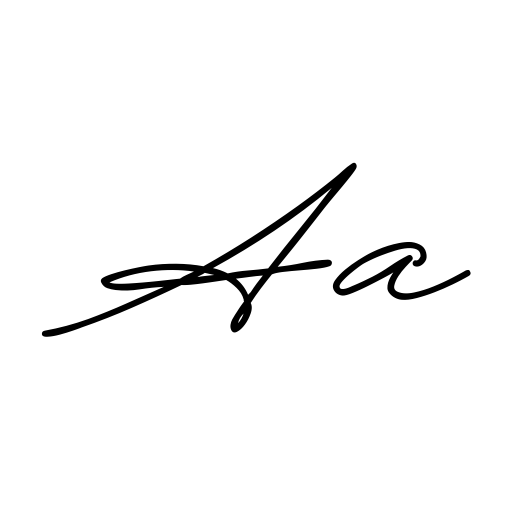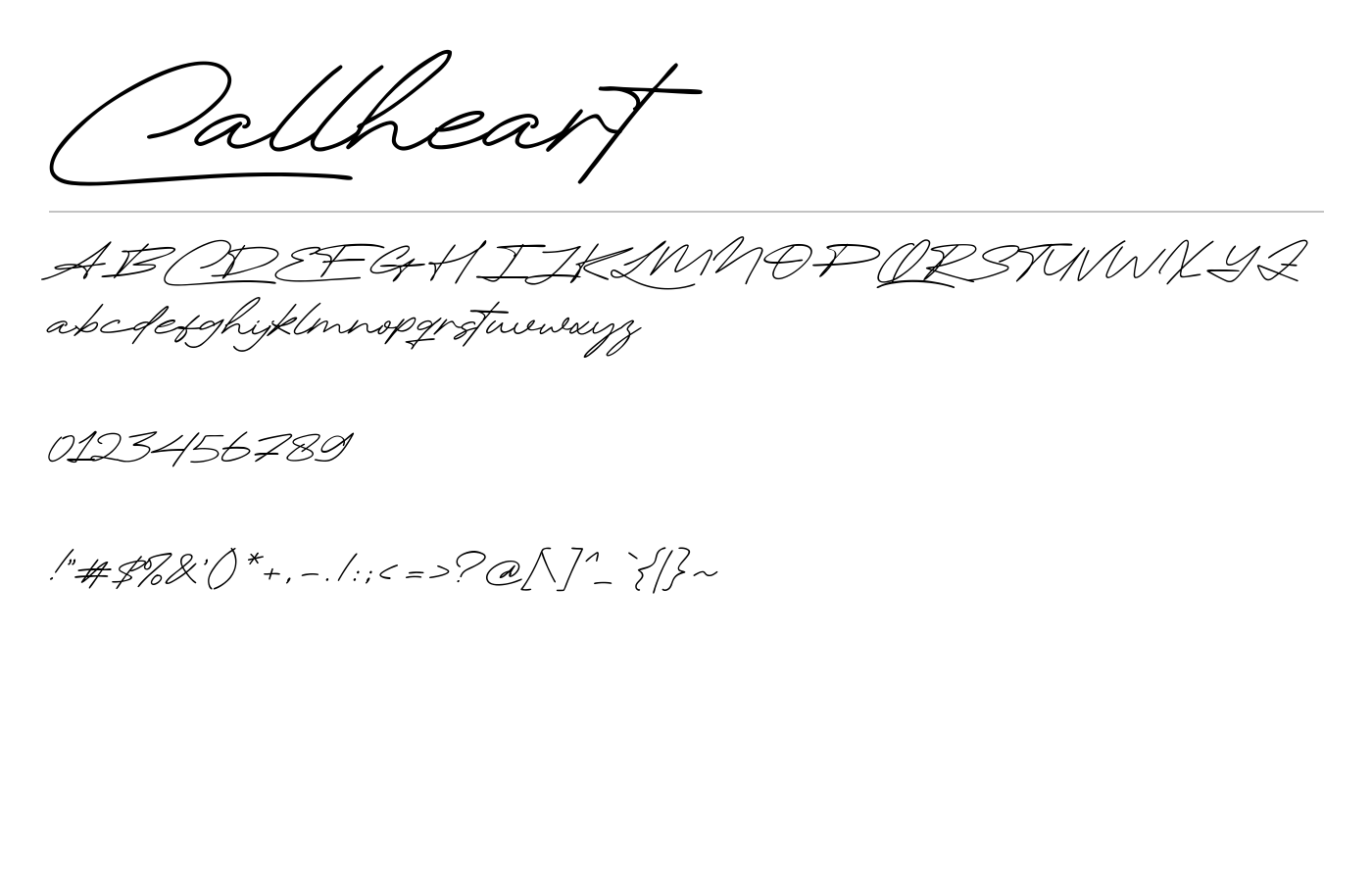
Callheart is a delicate, elegant script font with a handwritten, cursive style that exudes a personal and artistic touch. Its thin, flowing strokes and airy spacing create a sophisticated yet approachable feel, making it ideal for invitations, branding, and fashion-related designs where a graceful and refined impression is desired. This font works beautifully in logos and headlines that call for a stylish, contemporary handwritten look.
Callheart Font
About Callheart Font
| Font family | Callheart Font |